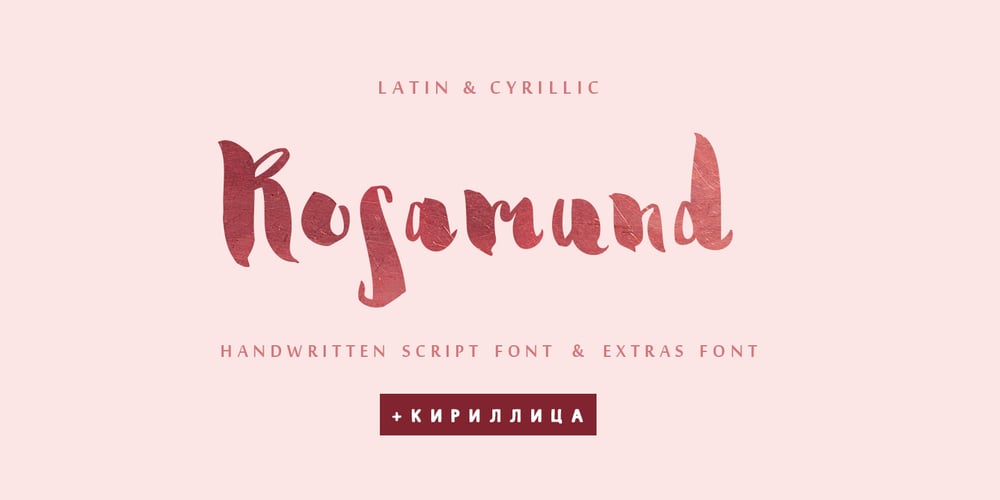
Rosamund Cyrillic Font Family was designed by Iryna Dviliuk and published by Ira Dvilyuk. Rosamund Cyrillic contains 2 styles and family package options. Rosamund Cyrillic Script Font is an inky brush script with heavy downstrokes, and skinny loops, and upstrokes. It was made with my favorite brush pen and retains a playful handwritten look for all your designs and will be perfect for use in your projects, be it logos, signatures, labels, packaging design, or blog headlines. Also, it will look great in mugs, cards, gorgeous typographic designs, stationery, and much more.Rosamund Cyrillic Script contains a full set of uppercase letters and 2 full sets of lowercase letters, (standard and alternative), and 17 ligatures. Use alternate lowercase and double-letter ligatures to create a perfect hand-painted look in your creations.The Cyrillic part of the font includes a full set of gorgeous uppercase and lowercase letters, ligatures, numerals, a large range of punctuation.Rosamund Symbols is a font with over 50 unique, hand-drawn doodles and illustrations that can help to make your design awesome. A different symbol is assigned to every uppercase and lowercase standard character so you do not need graphics software just simply type the letter you need.Multilingual Support for 32 languages: Afrikaans, Albanian, Basque, Bosnian, Catalan, Danish, Dutch, English, Estonian, Faroese, Filipino, Finnish, French, Galician, Indonesian, Irish, Italian, Malay, Norwegian Bokmål, Portuguese, Slovenian, Spanish, Swahili, Swedish, Turkish, Welsh, ZuluAnd Cyrillic glyphs support for Russian, Belorussian, Bulgarian, Ukrainian, and Kazakh languages.Works perfectly on the Canva platform.For Cricut & Silhouette recommended.Thanks!